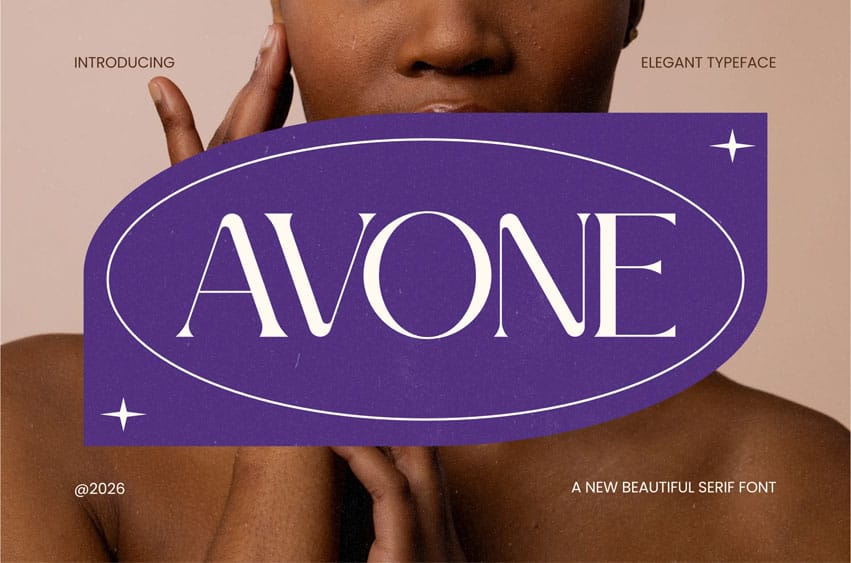
Avone Font is a high-contrast modern serif typeface for beauty branding and editorial storytelling, designed to deliver refined clarity through its sharp terminals, smooth curves, and balanced proportions. Its elegant and expressive vibe aligns perfectly with fashion magazines, skincare campaigns, and Instagram visuals. The refined serif structure, combined with graceful stroke transitions, creates a polished typographic voice—ideal for branding, social media, packaging, and editorial design. With support for 67 languages, it enables seamless global communication without compromising style.
Created for designers in beauty, fashion, and lifestyle industries, Avone enhances visual identity with a clean and confident tone. Whether you’re building branding systems, editorial spreads, posters, or product packaging, this typeface delivers strong visual hierarchy and refined presence. It supports creators aiming to communicate elegance, clarity, and global appeal across both print and digital platforms.
Key Features :
- High-Contrast Serif Design Sharp terminals and smooth curves create a striking and refined visual rhythm.
- Elegant & Expressive Style Designed to convey confidence and sophistication in beauty and editorial contexts.
- Multilingual Support (67 Languages) Reach wider audiences with extensive character coverage for global projects.
- Editorial & Branding Ready Perfect for magazines, skincare branding, packaging, social media, and campaigns.
- Balanced Proportions Carefully crafted letterforms ensure readability and harmony across layouts.